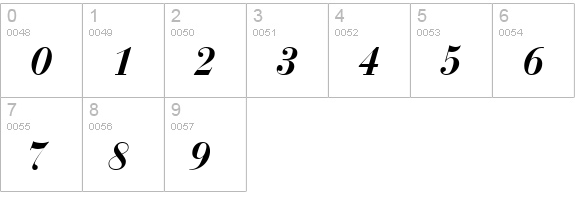
Bodoni Recut SSi Bold Italic is a strong, high-contrast, italic variant in the Bodoni typeface family \xE2\x80\x94 well suited to headlines, attention-grabbing titles, and strong calls-to-action.
Bodoni Recut SSi Bold Italic font exudes elegance and sophistication with its sleek lines and graceful curves. This bold italic typeface is perfect for adding a touch of sophistication to any design project. The Bodoni Recut SSi Bold Italic font is a modern interpretation of the classic Bodoni typeface, featuring sharper serifs and a bolder weight that demands attention. This font is freely available for download at FontsMarket.com, making it easily accessible for designers and creators looking to elevate their projects with a touch of timeless style. Whether you're designing a high-end fashion magazine, creating a luxury brand logo, or crafting an elegant wedding invitation, the Bodoni Recut SSi Bold Italic font is sure to make a statement and leave a lasting impression. Elevate your designs with this exquisite font today and add a touch of sophistication to your projects.